Need a creative & unique font duo for your new custom project and not sure about best font combination? No problem at all 😉 You’ll find here 46 fonts in 18 sets with script & sans fonts that work great together!
If you need some unique and professional quality custom font for your artistic style logo or slogan, this unique typography bundle from Maulana Creative is just for you! Great for your logos, cards, posters, mugs, t-shirts and many more. You can create professional font duo texts without much effort.
- 18 font sets with script & sans fonts that work great together!
18 font sets with script & sans fonts that work great together!
01. Love Rosnita – Font Duo from Maulana Creative
Give your designs an authentic handcrafted feel. “Love Rosnita” is perfectly suited to signature, stationery, logo, typography quotes, magazine or book cover, website header, clothing, branding, packaging design and more. This font available on Duo OTF & TTF formats.
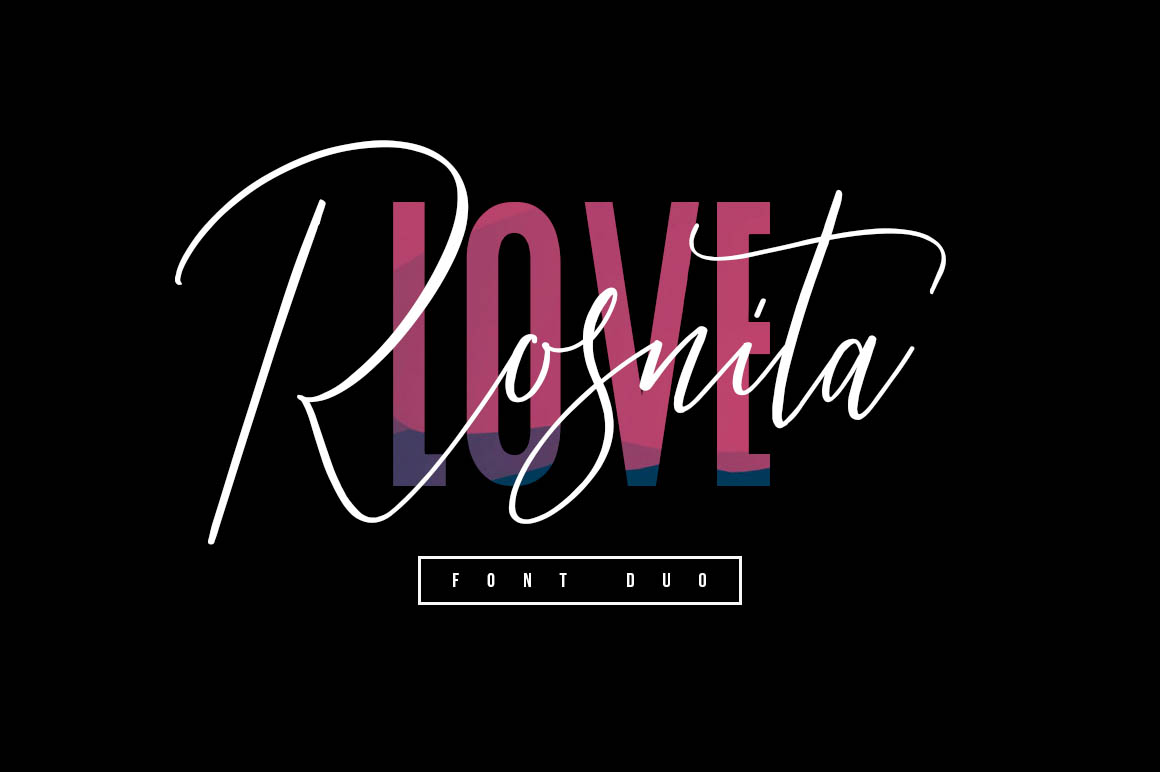
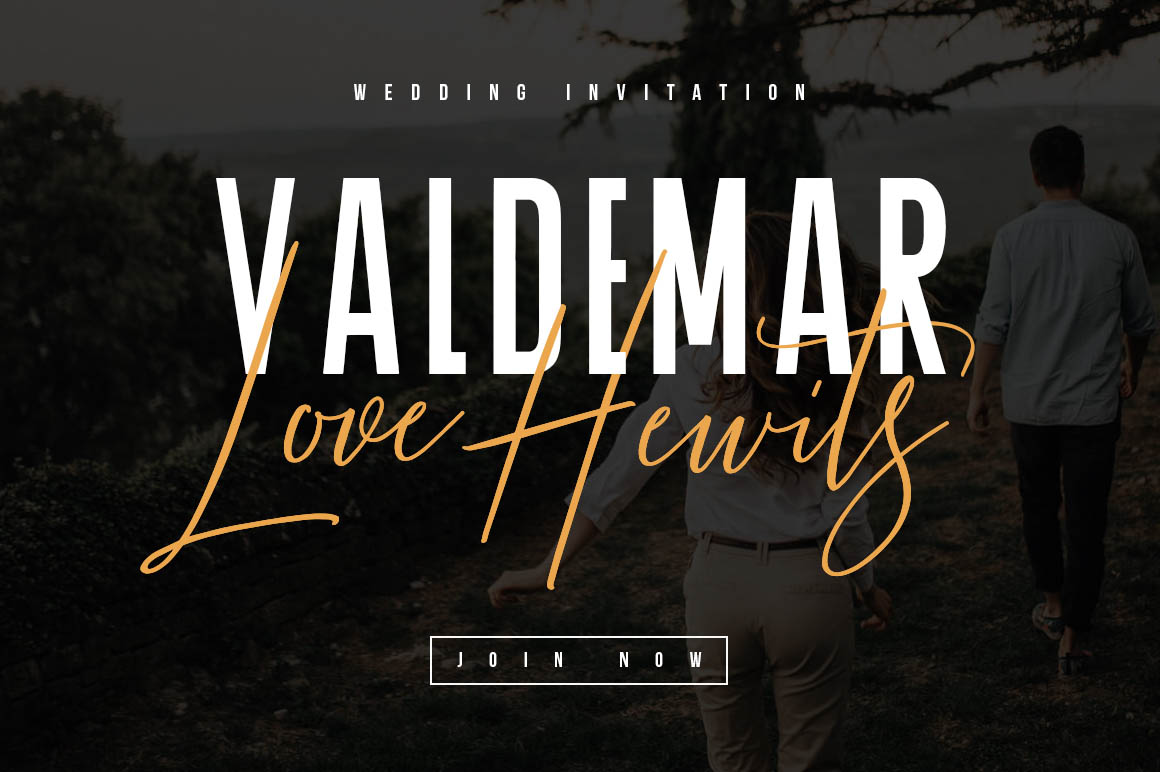
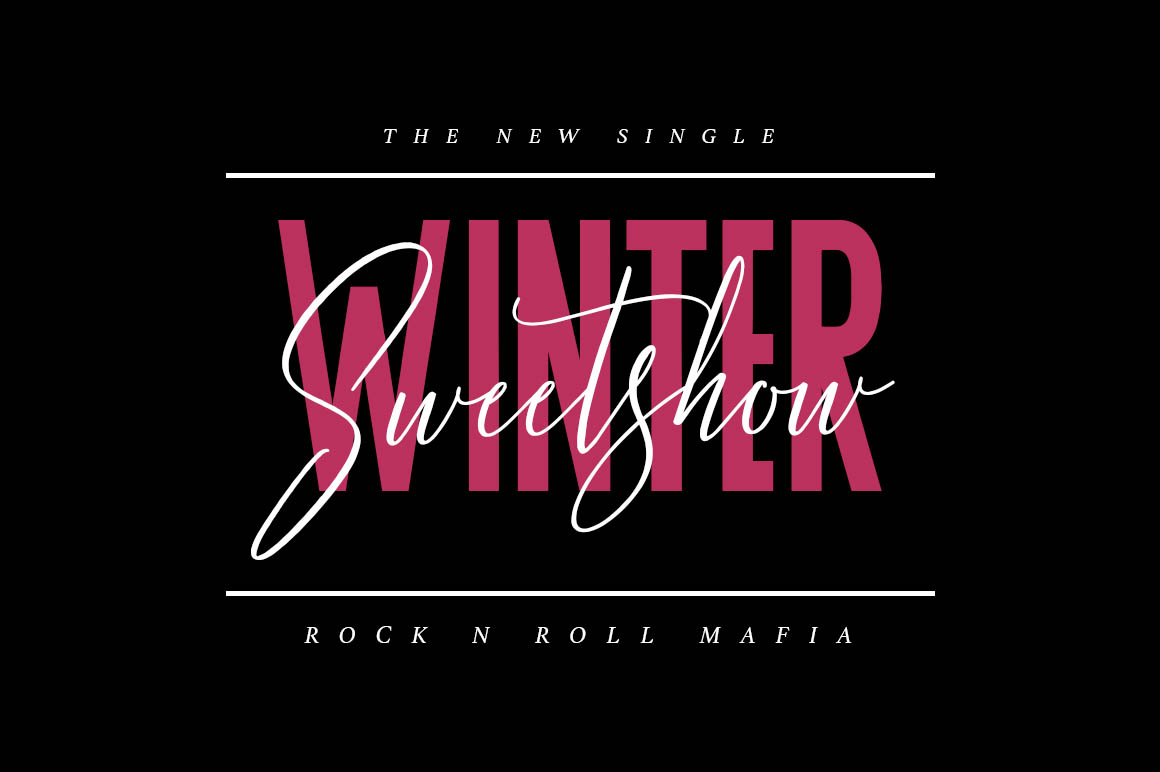
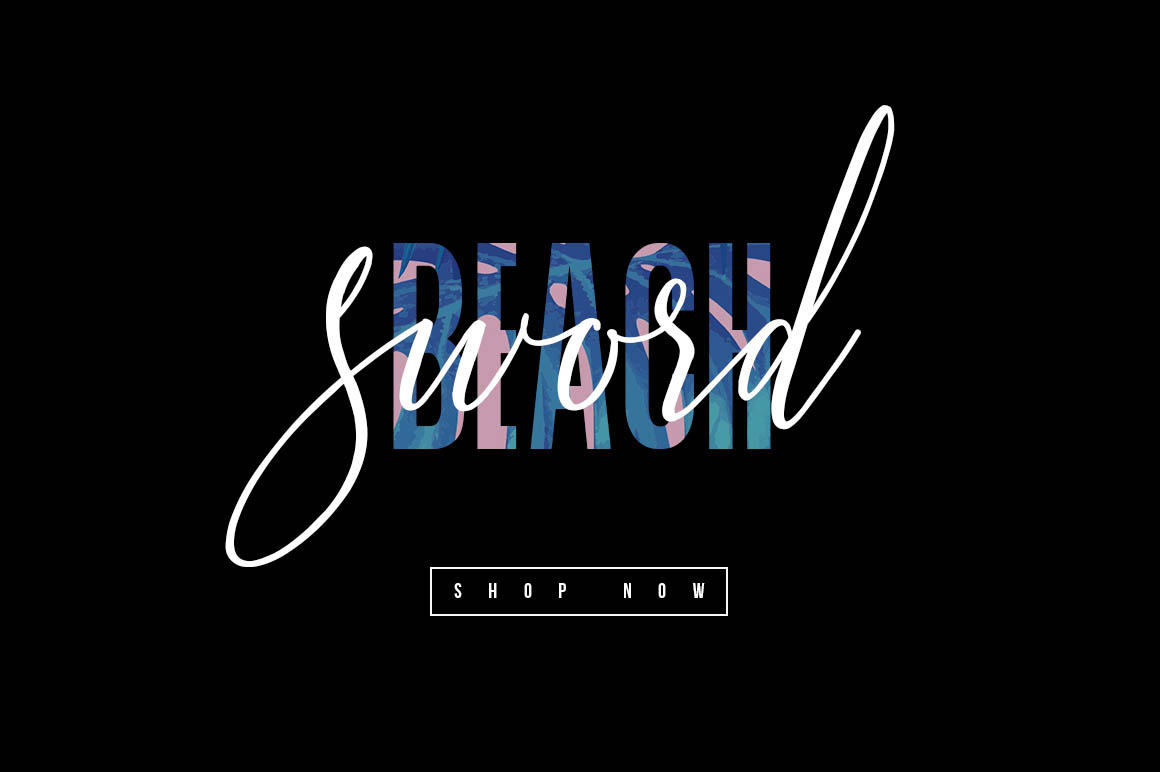
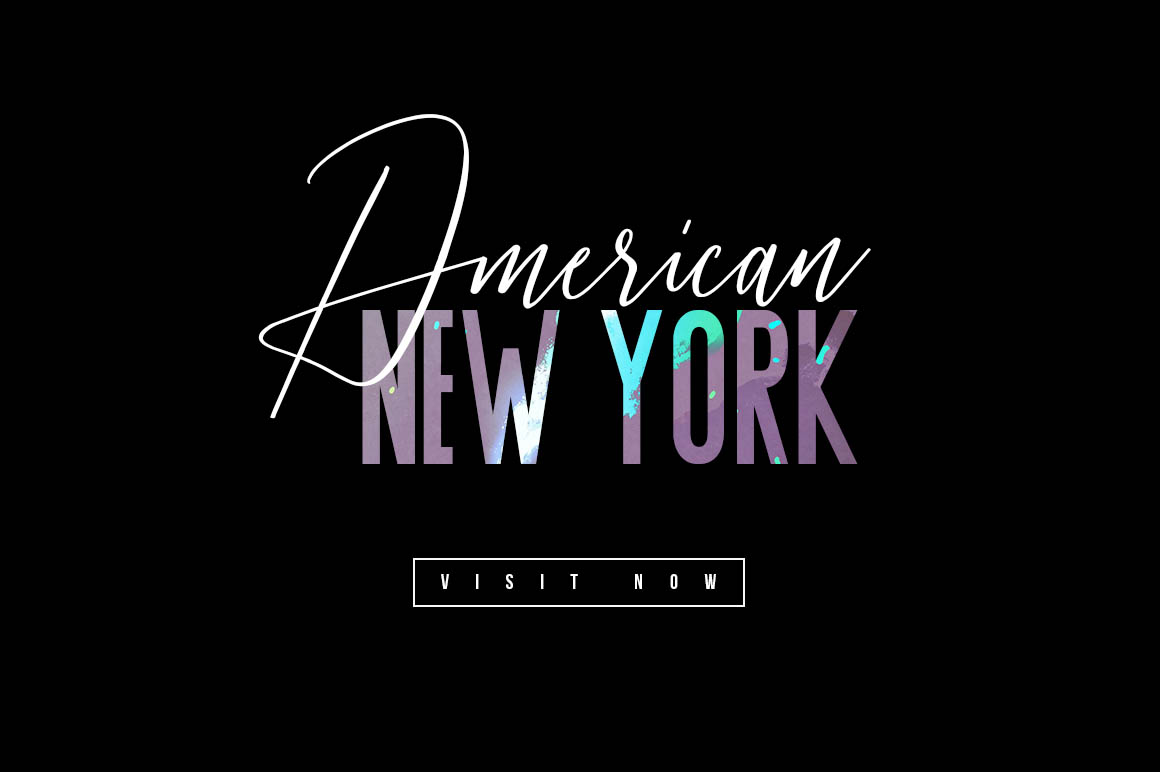
02. Fractis Typeface Collection from Maulana Creative
Give your designs an authentic handcrafted feel. “Fractis” is perfectly suited to signature, stationery, logo, typography quotes, magazine or book cover, website header, clothing, branding, packaging design and more. Included Alternates.
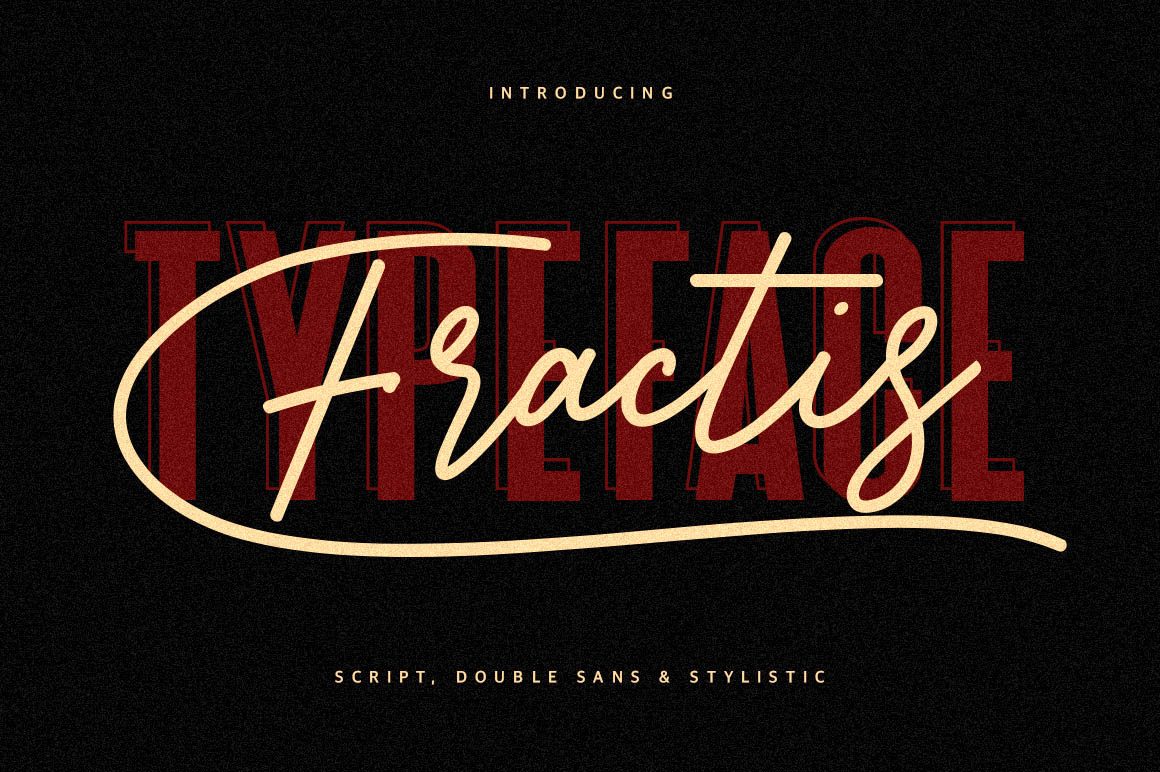
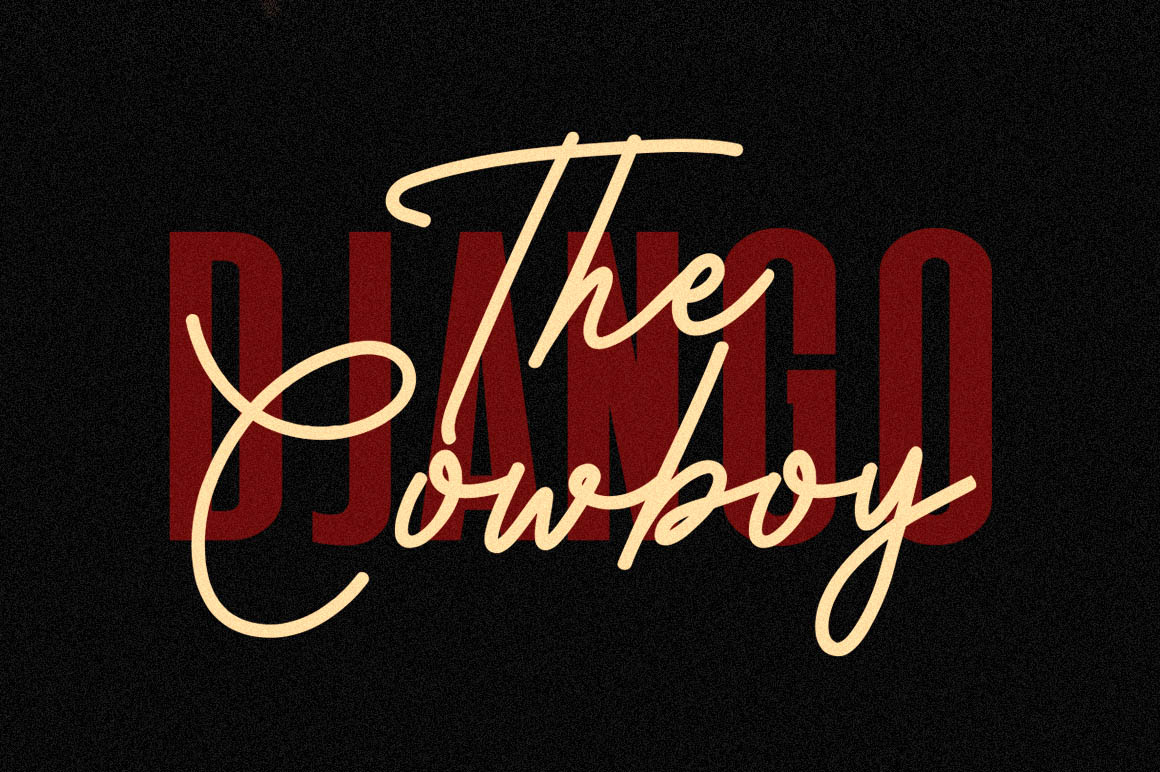
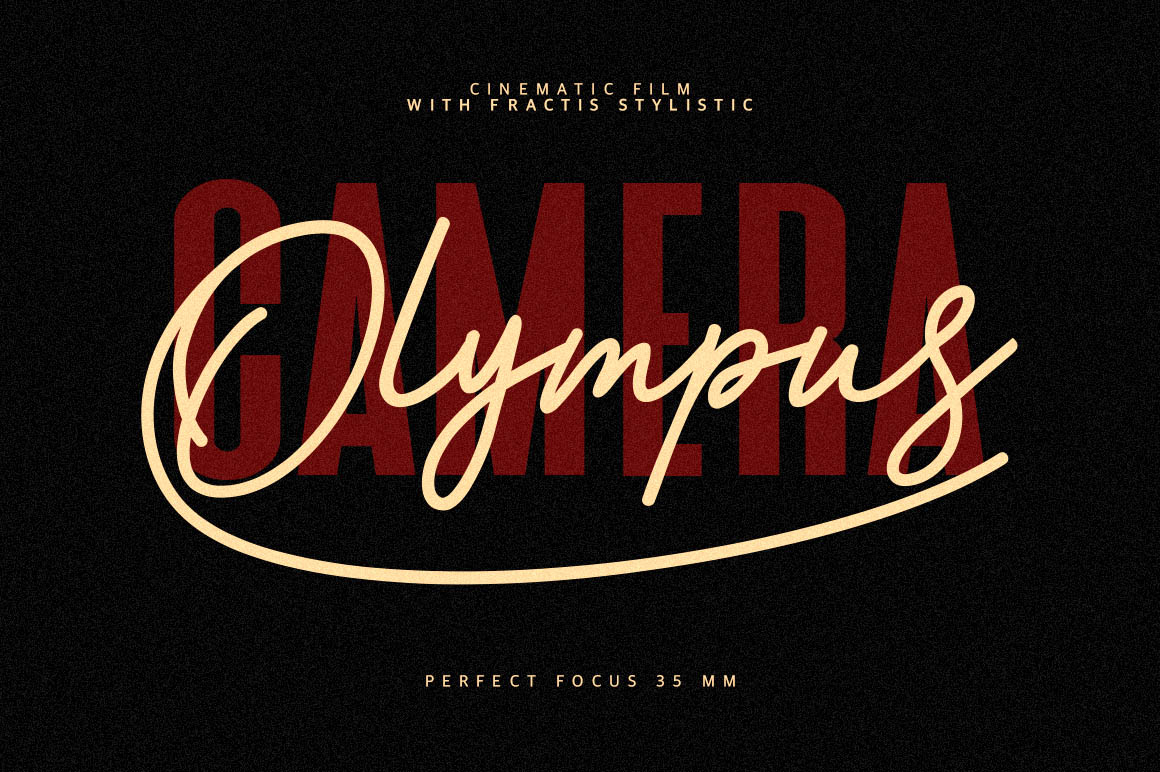
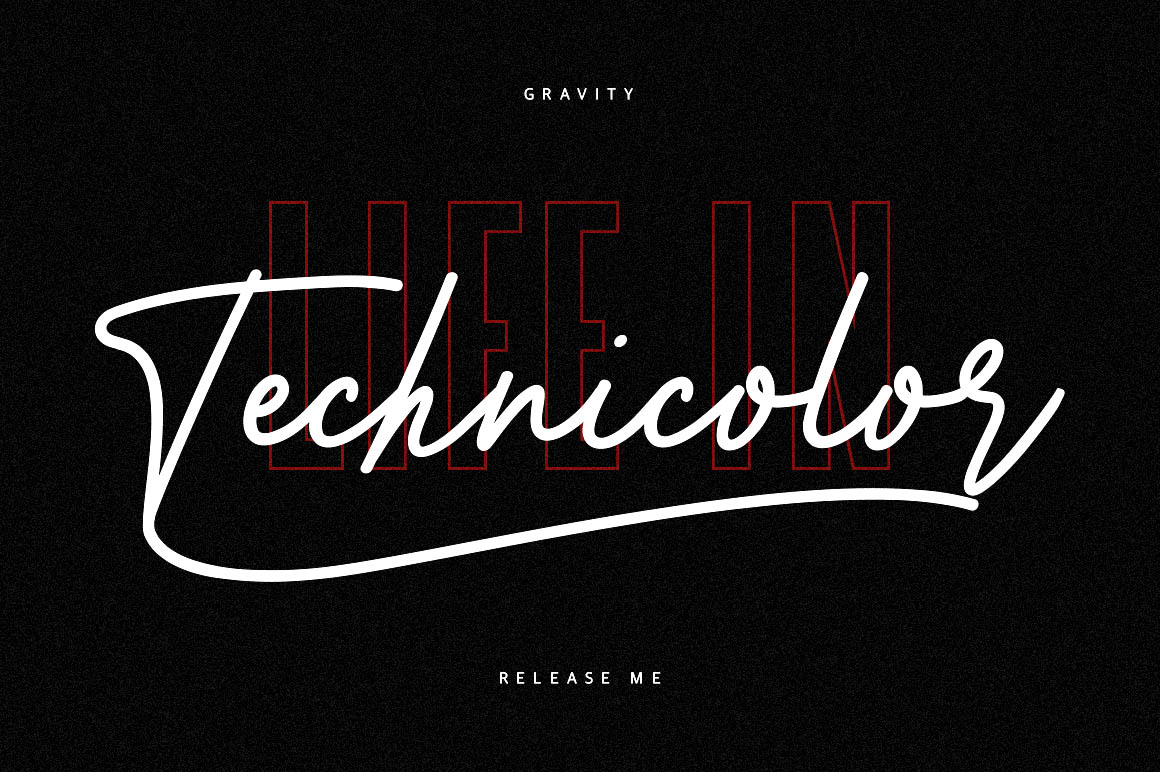
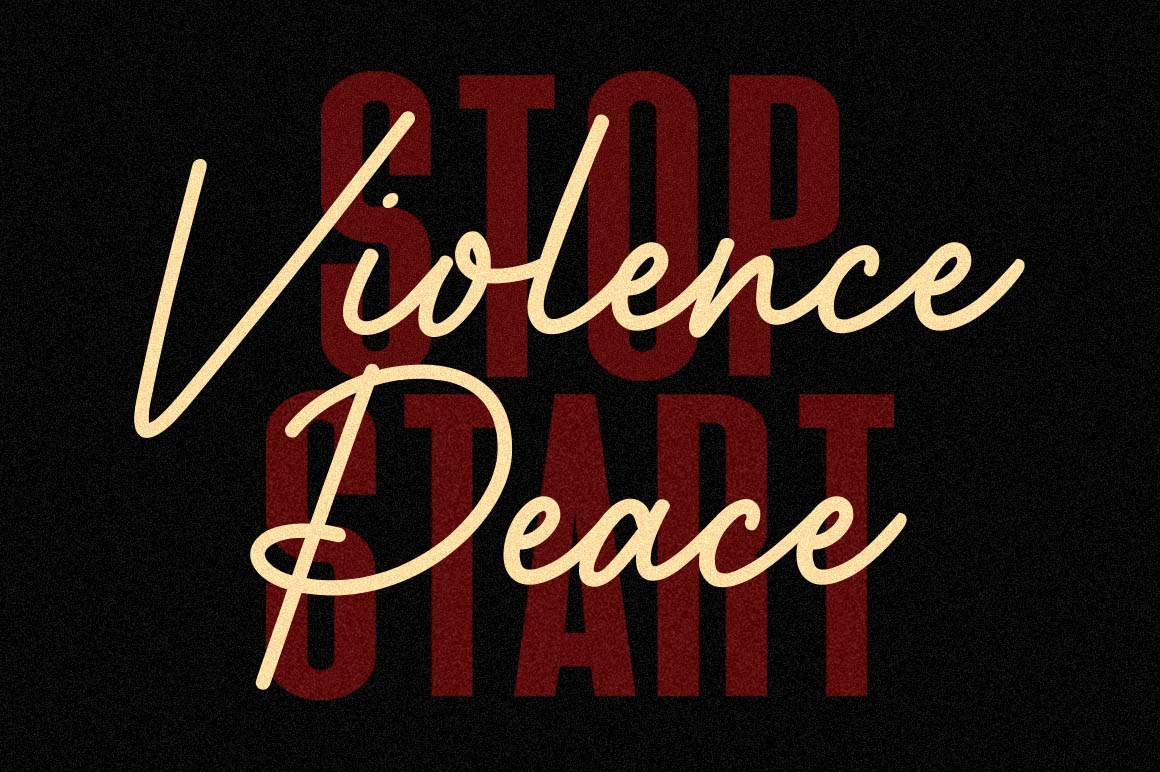
03. Funtastic Youth Typeface from Maulana Creative
Give your designs an authentic handcrafted feel. “Funtastic Youth” is perfectly suited to signature, stationery, logo, typography quotes, magazine or book cover, website header, clothing, branding, packaging design and more.
04. Amstonia Signature from Maulana Creative
Give your designs an authentic handcrafted feel. “Amstonia” is perfectly suited to signature, stationery, logo, typography quotes, magazine or book cover, website header, clothing, branding, packaging design and more. Included Stylistic, Swash & Ligatures. Free Sans Serif.
05. Strollers Font from Maulana Creative
Give your designs an authentic brush handcrafted feel. “Strollers Font” is perfectly suited to signature, stationery, logo, typography quotes, magazine or book cover, website header, clothing, branding, packaging design and more.
06. Hunny Straw Font Collection from Maulana Creative
Give your designs an authentic handcrafted feel. Hunny Straw Font Collection is perfectly suited to signature, stationery, logo, typography quotes, magazine or book cover, website header, clothing, branding, packaging design and more.
07. Seirra Typeface SVG from Maulana Creative
Give your designs an authentic brush handcrafted feel. “Seirra Typeface” is perfectly suited to signature, stationery, logo, typography quotes, magazine or book cover, website header, clothing, branding, packaging design and more.
08. Rattles Signature + Serif from Maulana Creative
Give your designs an authentic handcrafted feel. “Rattles” is perfectly suited to signature, stationery, logo, typography quotes, magazine or book cover, website header, clothing, branding, packaging design and more. Include Ligatures “ll, rr, ss, oo, mm, nn, tt”
09. Pure Dance – SVG Font from Maulana Creative
Give your designs an authentic brush handcrafted feel. “Pure Dance” is perfectly suited to signature, stationery, logo, typography quotes, magazine or book cover, website header, flyer, clothing, branding, packaging design and more.